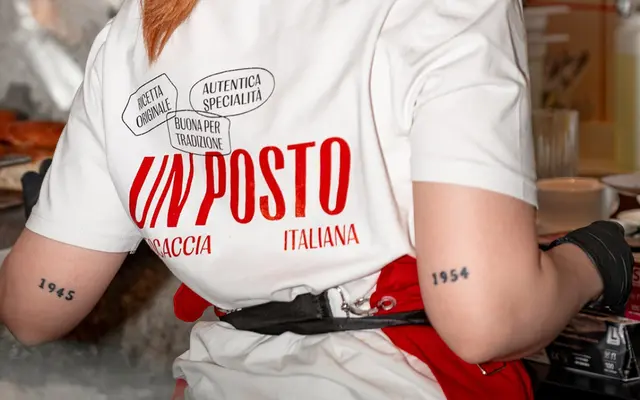
Right Gothic
Pangram Foundry · Alex Slobzheninov · 2021
A large variable gothic sans by Alex Slobzheninov spanning seven widths and seven weights, distinguished by a pronounced stroke contrast drawn from early pre-Swiss sans tradition.
Right Gothic spans 98 static styles across seven subfamilies — Tall, Tight, Narrow, Compact, Casual, Wide and Spatial — each available in 14 styles with a variable cut covering weight, width and italic axes. Unlike most contemporary sans serifs, it reintroduces visible thick-to-thin contrast, referencing the anatomy of early grotesques that sat between serif and the later neutralised Swiss model. Cyrillic support is included across all subfamilies.
Described as a 'gothic' sans referring to the pre-Swiss genre of early sans serifs, featuring pronounced stroke contrast reminiscent of serif anatomy, placing it clearly in the historical gothic/grotesque lineage rather than modern neutral sans territory.